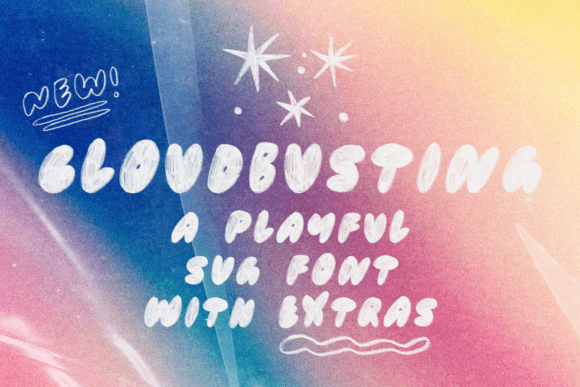
Welcome to the world of Cloudbusting Font - the perfect blend of playfulness, boldness, and versatility. Created by anasfonts, this sans serif font boasts bubble letters, multiple variations, and an extra set of drawings. Whether you're designing a logo, a website, or a magazine layout, Cloudbusting is the best font for SVG.
At first glance, you'll be captivated by the whimsical charm of this font. The bubble letters add a sense of playfulness to your design, while the boldness commands attention. Cloudbusting offers an array of variations, making it the ideal choice for any project, no matter how big or small. Whether you're designing a logotype or a social media post, Cloudbusting is the perfect font to elevate your design to the next level.
One of the most exciting features of Cloudbusting is the extra set of drawings that come with it. These drawings offer endless possibilities for customization and personalization. You can create anything from a whimsical poster to a bold advertisement. The versatility of this font is truly unmatched.
With Cloudbusting, you're not just getting a font - you're getting an experience. This font is perfect for anyone looking to add a touch of playfulness and boldness to their designs. The Best Font for SVG, Cloudbusting is guaranteed to take your design to the next level. So why settle for a plain font when you can have Cloudbusting?